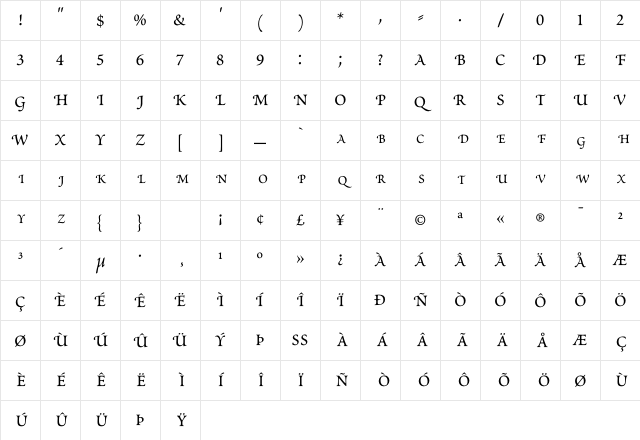
LHF Lakeside Country 1 Regular
Foundry: Dave Correll for Letterhead Fonts
Designer: Dave Correll
Design Context for LHF Lakeside Country 1
LHF Lakeside Country 1 is a composed and adaptable typeface that performs quietly and consistently across a wide range of design contexts.